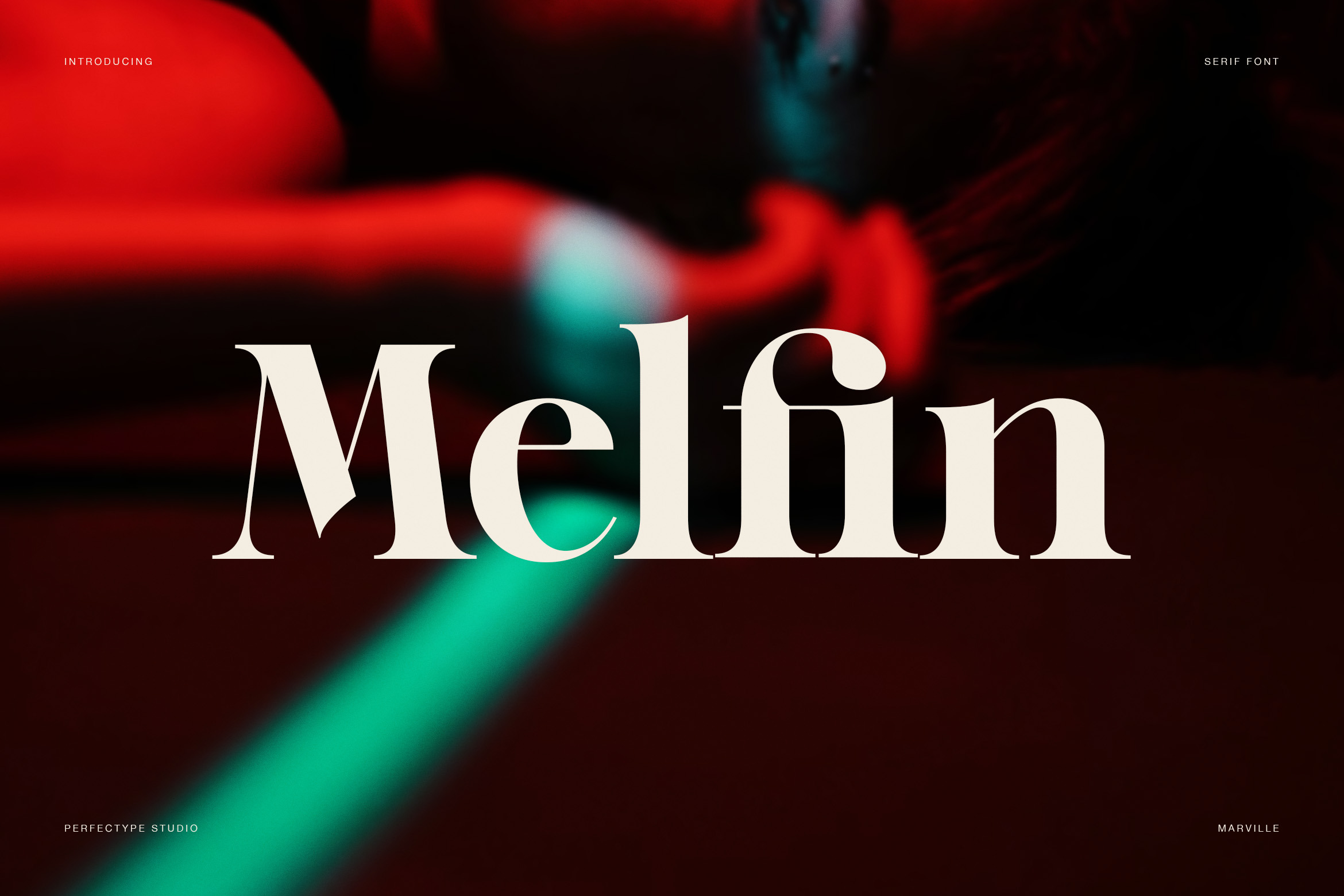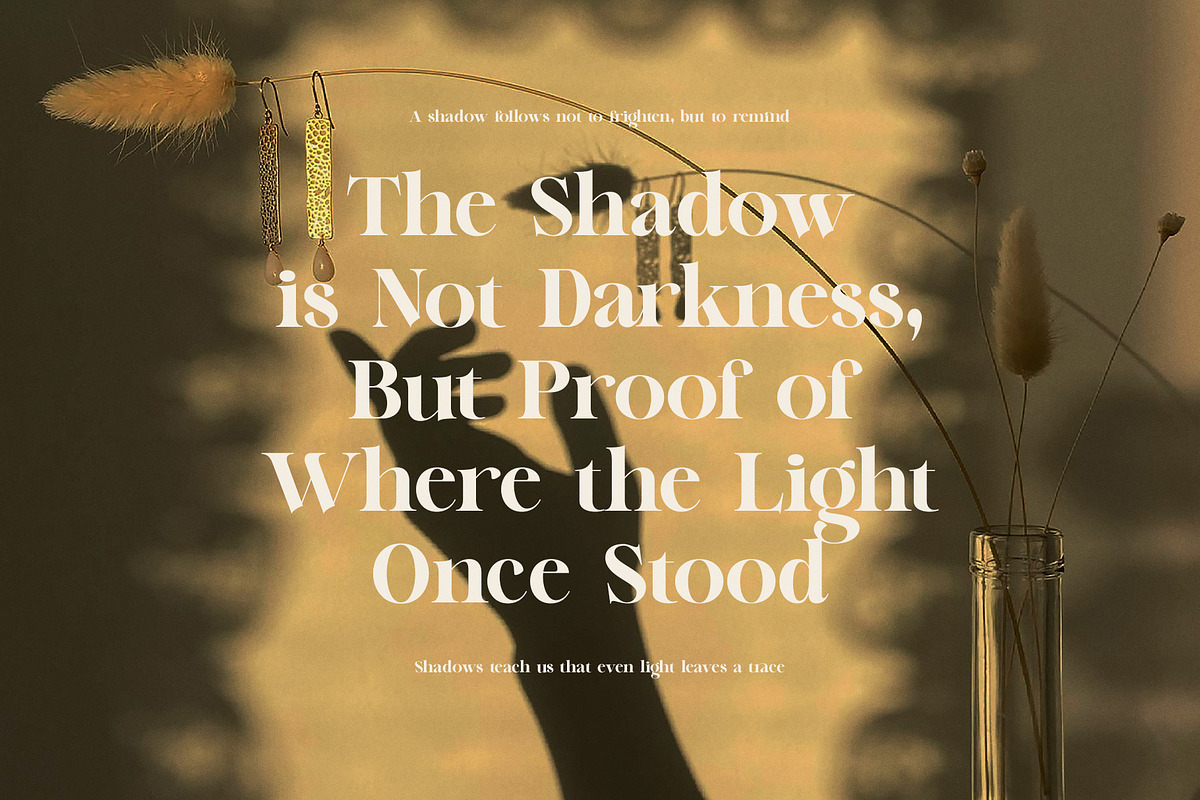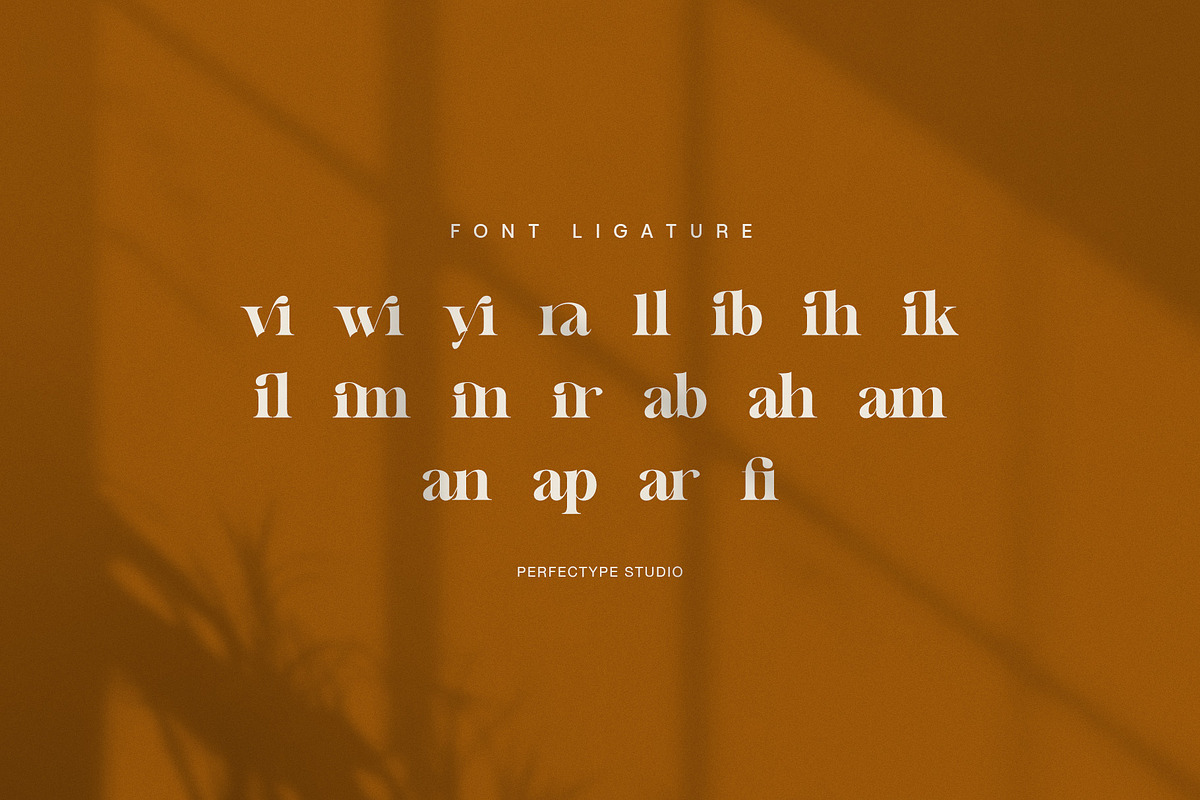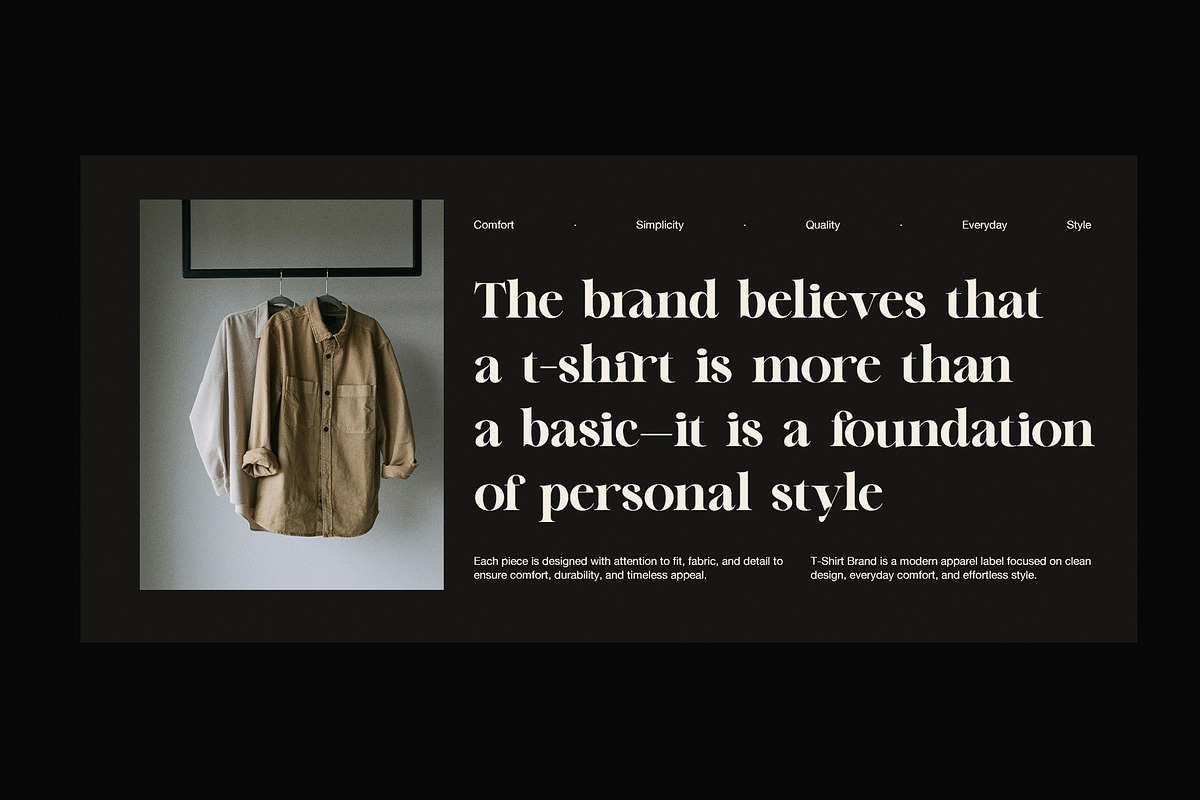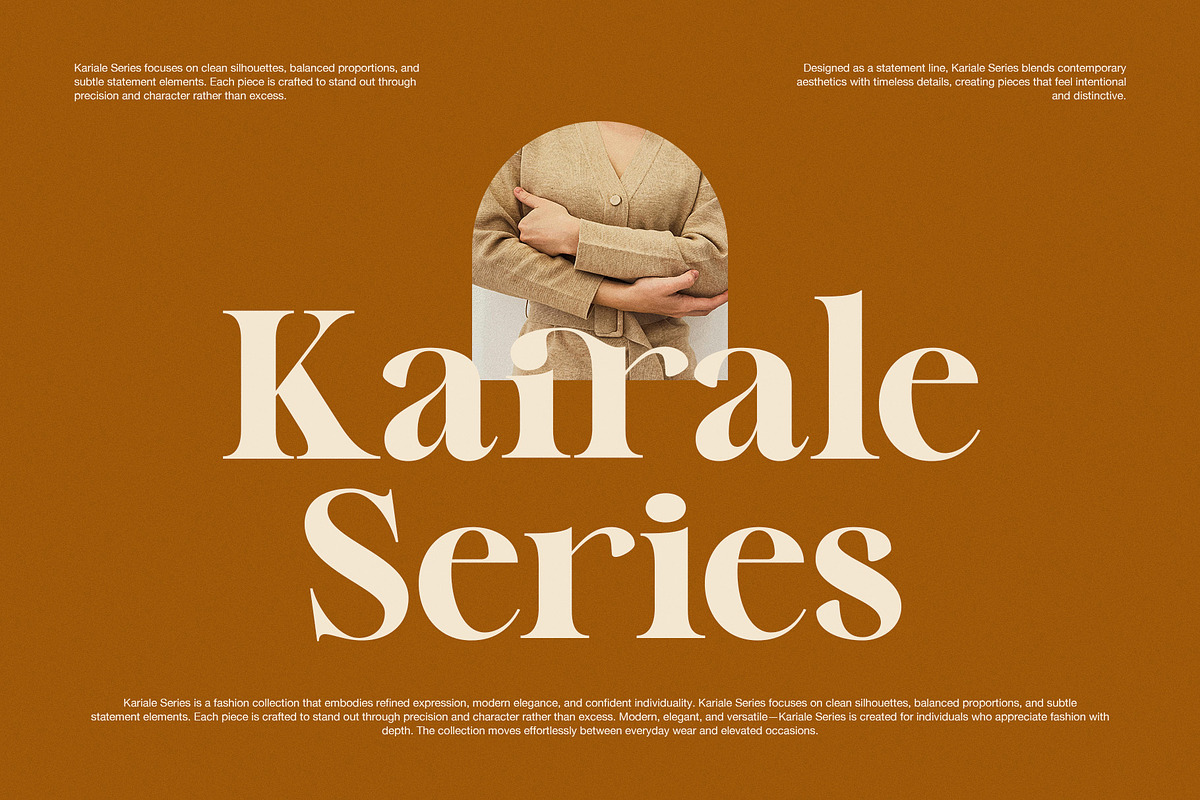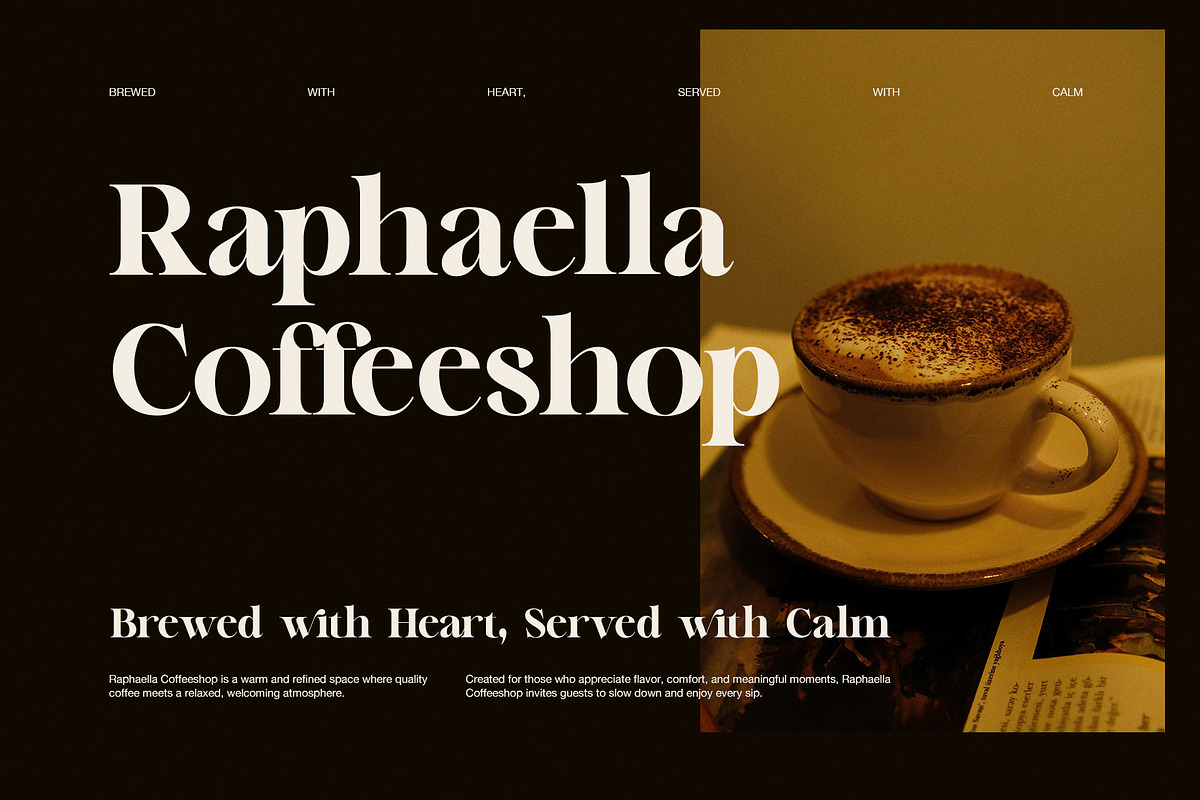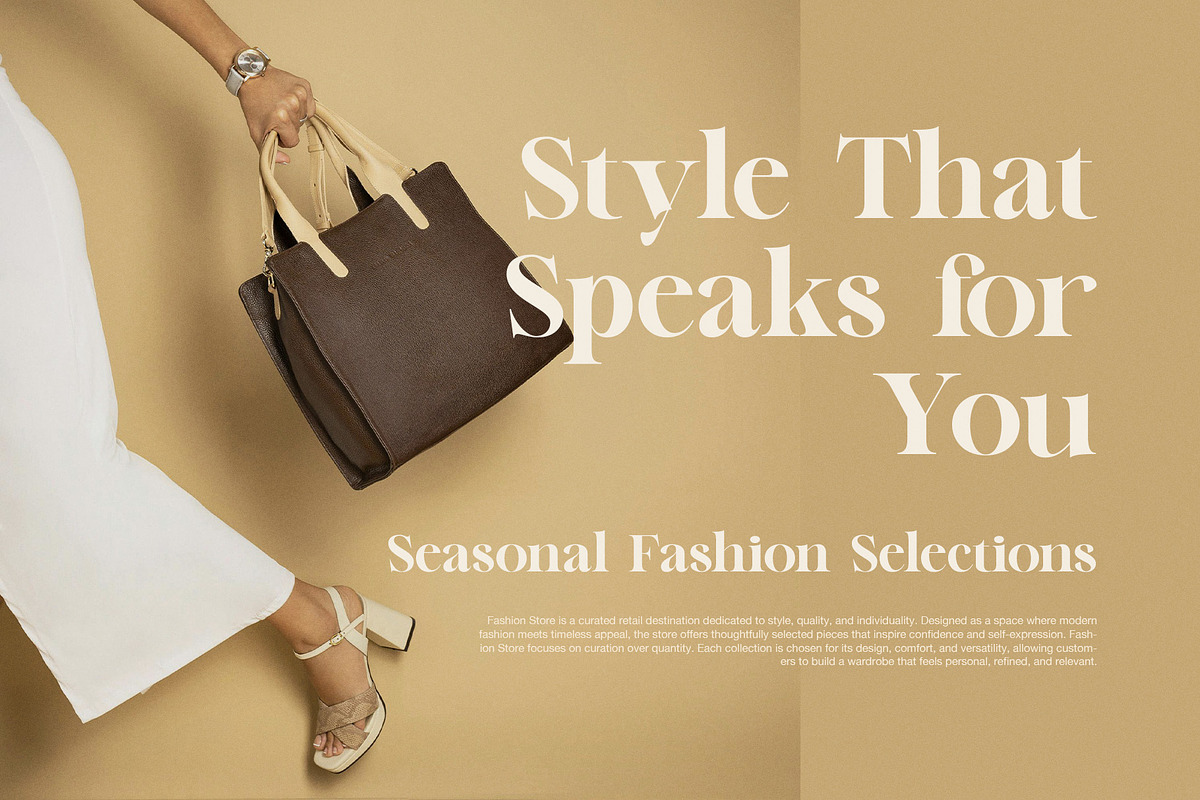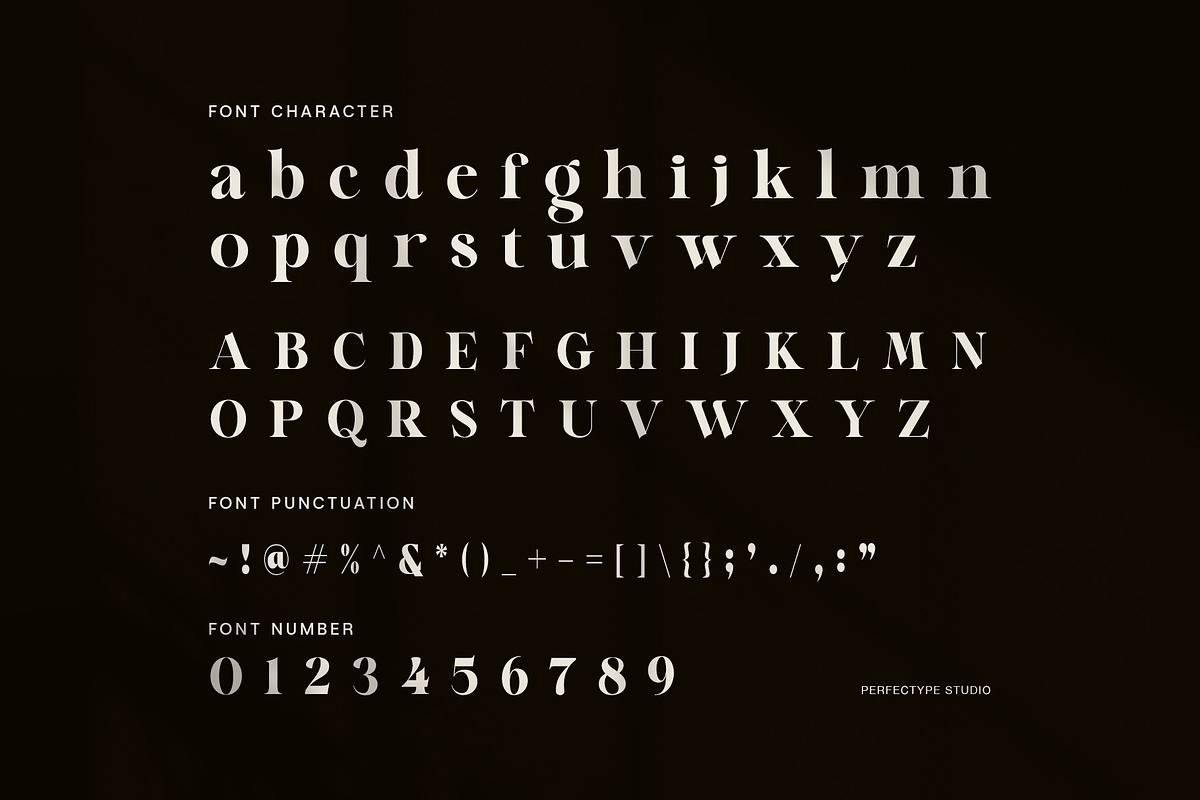
Melfin Modern Serif Font
Melfin is a modern elegant serif font designed to deliver clarity, style, and quiet confidence. Its refined letterforms combine classic serif structure with contemporary proportions, so it feels both timeless and fresh. Because of its balanced contrast and smooth curves, Melfin reads beautifully in large headlines while still remaining graceful in smaller text.
This font emphasizes clean silhouettes and carefully shaped terminals. As a result, every word looks polished and intentional rather than decorative or excessive. The tall ascenders and open counters create a light, breathable texture, which helps layouts feel premium and calm. In addition, the subtle character details give brand names, editorial titles, and quotes a distinctive voice.
Melfin works especially well for fashion, lifestyle, and luxury branding. However, it also adapts easily to modern business identities, packaging, and digital interfaces. Whether used on websites, magazines, or social media, the font maintains strong visual presence without overwhelming the design.
Ideal uses include:
Luxury and fashion branding
Editorial headlines and magazines
Coffee shop and boutique logos
Elegant packaging and labels
Website hero titles
Quotes, invitations, and posters
Furthermore, Melfin includes a full character set with uppercase, lowercase, numbers, punctuation, and useful ligatures. Therefore, designers can build consistent typography across many projects without switching fonts. The ligatures add subtle sophistication while preserving readability.
The font’s neutral yet refined personality allows it to pair smoothly with minimalist sans-serif fonts. Consequently, designers can create modern layouts that feel both structured and expressive. Melfin does not rely on trends alone; instead, it delivers a dependable style that remains relevant over time.
If you need a serif font that communicates elegance, warmth, and professionalism at once, Melfin provides a versatile solution. It brings quiet luxury to any design while keeping text clear and inviting to read.